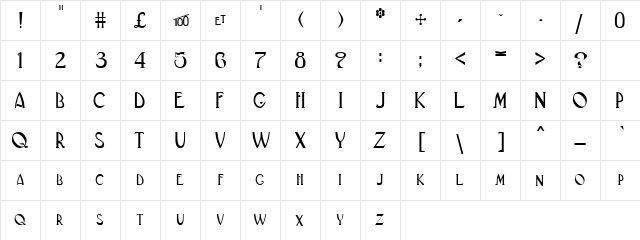
Black Thurzday Regular
Design Context for Black Thurzday Typeface
Black Thurzday is a composed and adaptable typeface that performs quietly and consistently across a wide range of design contexts.